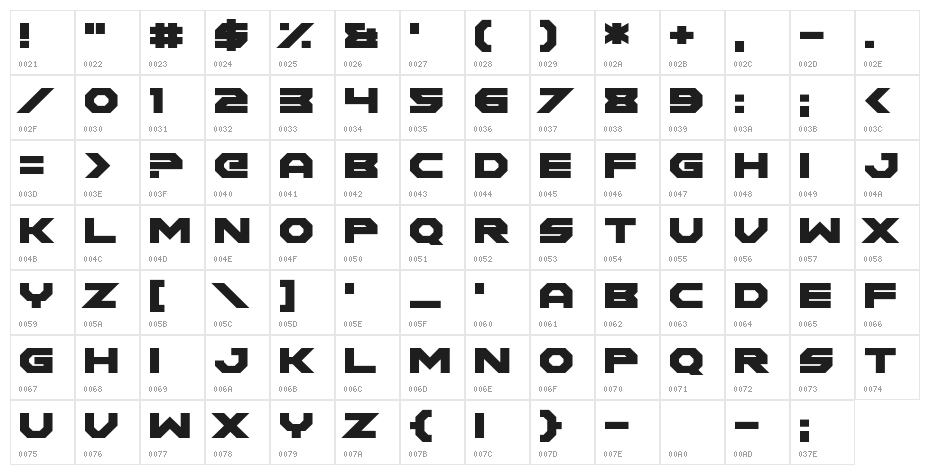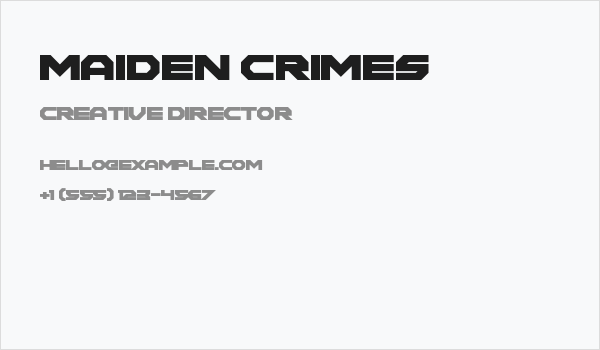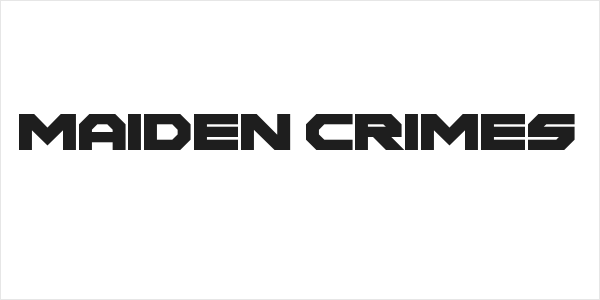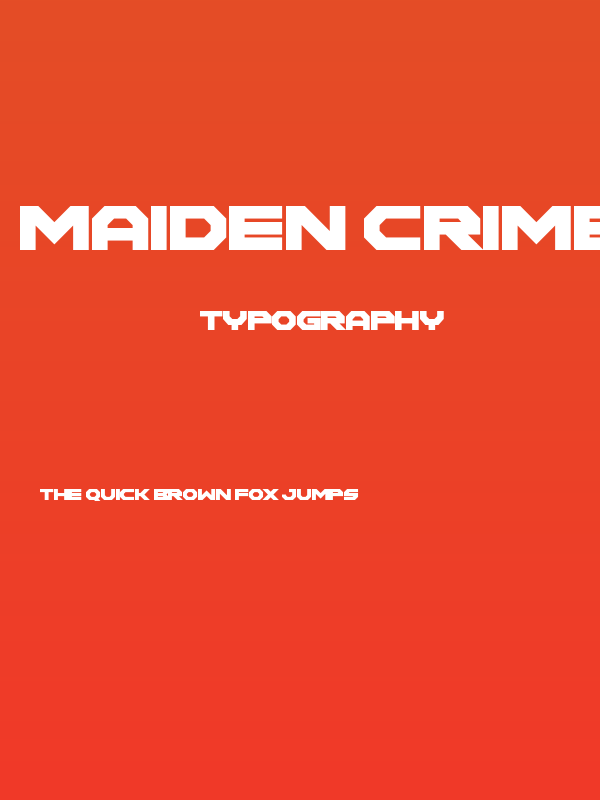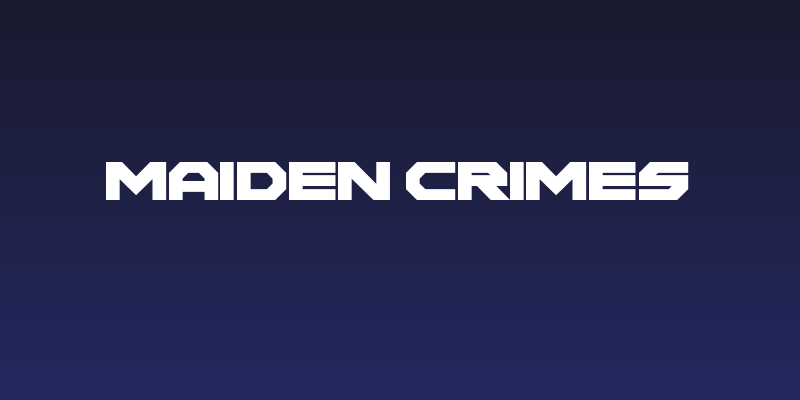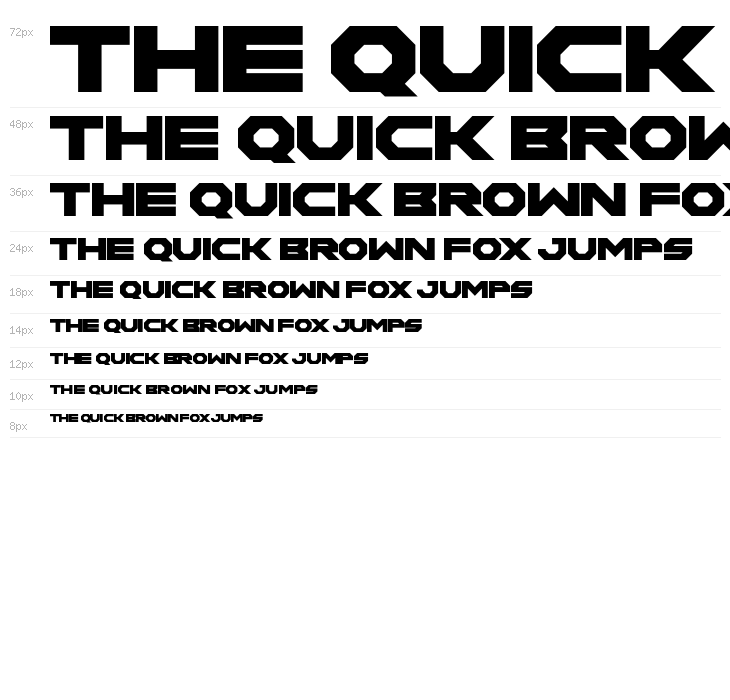
Maiden Crimes Font
Maiden Crimes Description
This font features a bold, geometric design with sharp angles and a futuristic aesthetic. The characters are constructed with thick, uniform strokes, giving them a strong and impactful presence. The angular cuts and unique shapes create a sense of movement and dynamism, making it ideal for attention-grabbing designs. The uppercase and lowercase letters maintain a consistent style, while the numerals and special characters integrate seamlessly with the overall design. This font is perfect for projects that require a modern and edgy look.
| Proposed Projects | Ideal for sci-fi themed posters, video game titles, branding for tech companies, and modern advertising campaigns. |